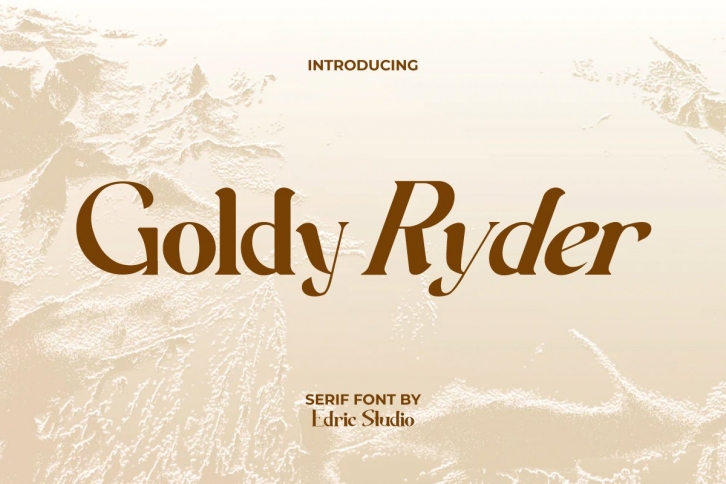
Goldy Ryder is a great font that was designed by EdricStudio. Imagine the amount of combinations you can create using this font! The archive is 21.90 MB and it was released on September 10, 2022. Goldy Ryder looks beautiful on wedding invitations, greeting cards, logos, posters, labels, t-shirt designs, logos, business cards and is perfect for use in ink or watercolor works, fashion, magazines, packaging and food menus, children's books and more!